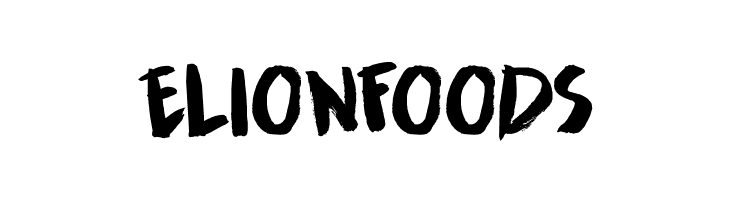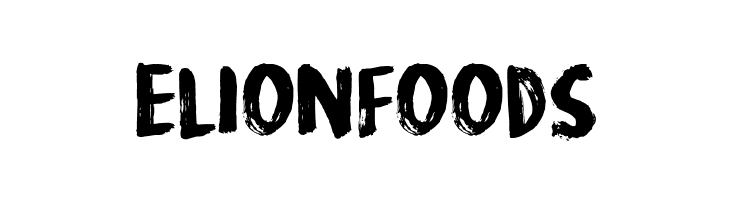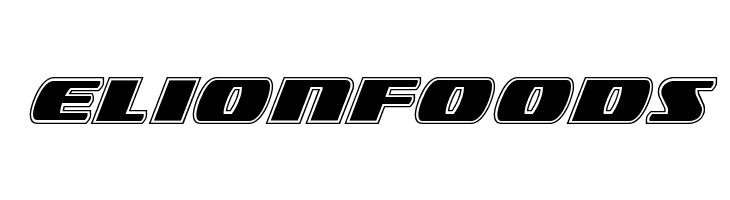
A decorative font with letters inside heart shapes, featuring floral and envelope motifs.
A playful, cookie-inspired decorative font with bold, white letters on dark, round backgrounds.
A decorative font with bold letters inside heart shapes, ideal for romantic themes.
A decorative font with bold letters inside blackbird silhouettes.
A bold, hand-painted style font with textured, brush-like strokes.
A bold, slanted font with outlined characters and a modern, dynamic style.
A playful, collage-style font with eclectic, cut-out letter designs.
Ornate, decorative initials with intricate floral and cherubic designs.
A decorative font with bold letters encased in intricate circular frames.